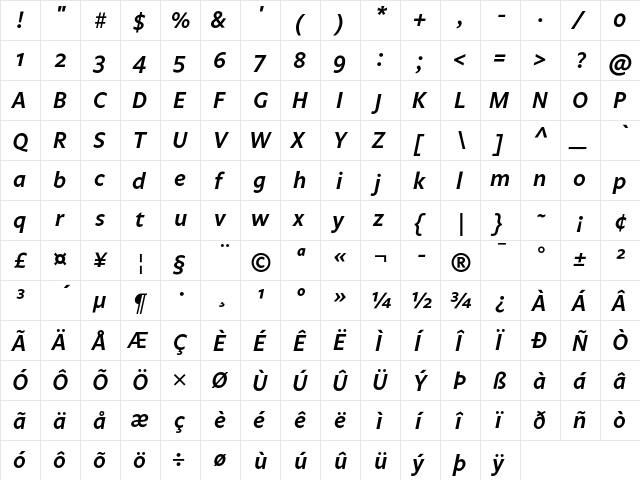
Legato Semi Bold Italic
Design Context for Legato Typeface
Legato is a composed and adaptable typeface that performs quietly and consistently across a wide range of design contexts. Its italic angle brings a sense of urgency and motion to the letterforms. The heavy weight commands attention and anchors typographic hierarchies.
Pro Tip: Try Legato for annotation and caption copy alongside an upright companion — the contrast in angle creates a dynamic but ordered typographic system.